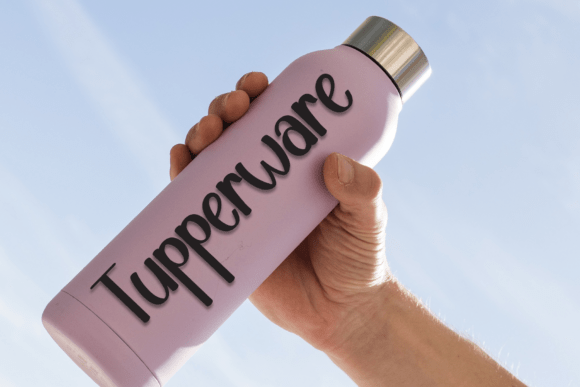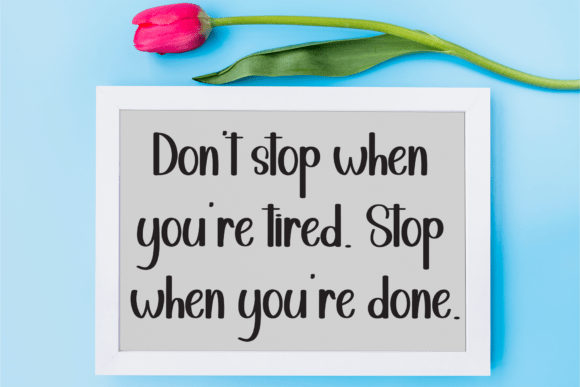
Birthday Notion Font
Birthday Notion is a playful handwritten font bursting with party spirit and festive charm. Its tall, rounded characters and cheerful bounce make it ideal for birthday cards, celebration banners, invitations, and kids' party decor. It brings fun energy to every occasion and adds a joyful vibe to your creative work.